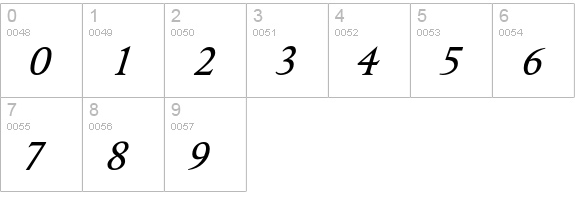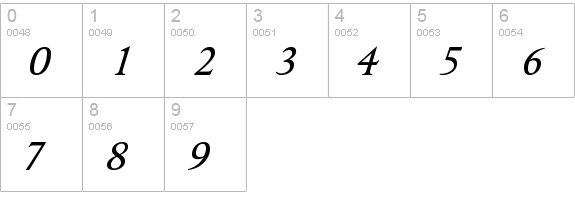
DTLElzevirTBook-Italic is a distinctive, italic variant in the DTLElzevirTBook typeface family \xE2\x80\x94 well suited to design and typography projects.
The DTLElzevirTBook-Italic font exudes elegance and sophistication with its sleek, italic design. Its graceful curves and delicate strokes make it perfect for adding a touch of refinement to any project. Whether you're designing for print or digital media, this font is sure to make a lasting impression. What's even better is that the DTLElzevirTBook-Italic font is available for free download at FontsMarket.com. That's right, you can enhance your designs with this premium font at no cost at all. Don't miss out on the opportunity to elevate your creations with the timeless beauty of DTLElzevirTBook-Italic. Download it today and let your creativity soar!